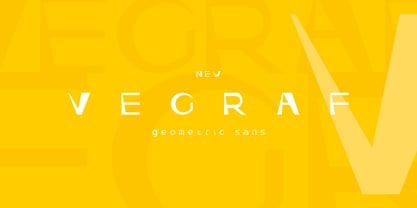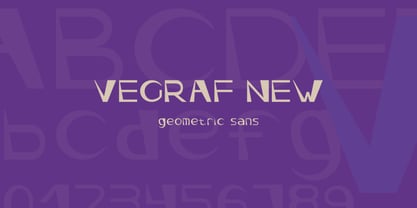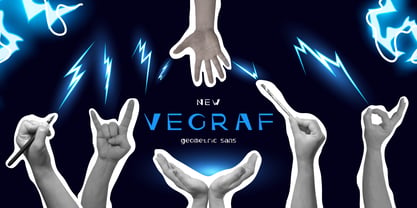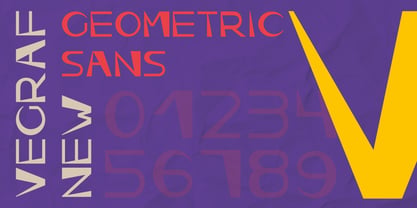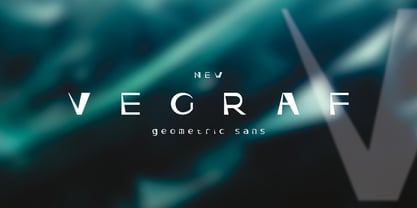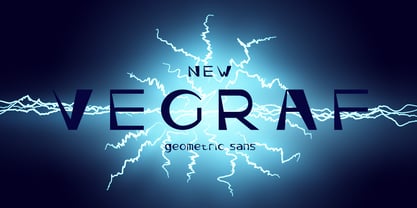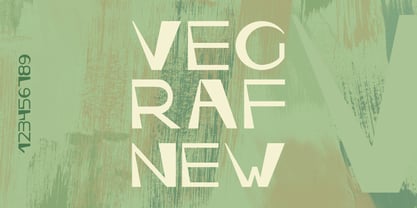
Vegraf
The Vegraf Font Family was designed by Svetlana Li and published by Vegraf. Vegraf contains 1 styles. More about this family
Vegraf new is an expressive geometric display typeface designed for projects that demand bold, unconventional typography. Its letterforms combine strict geometric construction with sharp asymmetric cuts, creating a sense of movement and handcrafted energy. Inspired by avant-garde composition, constructivist aesthetics, and textured art surfaces, Vegraf naturally becomes the focal point of any layout. It thrives in large headlines, posters, creative covers, art direction, and contemporary branding.